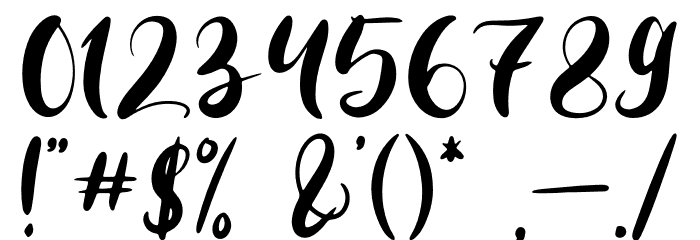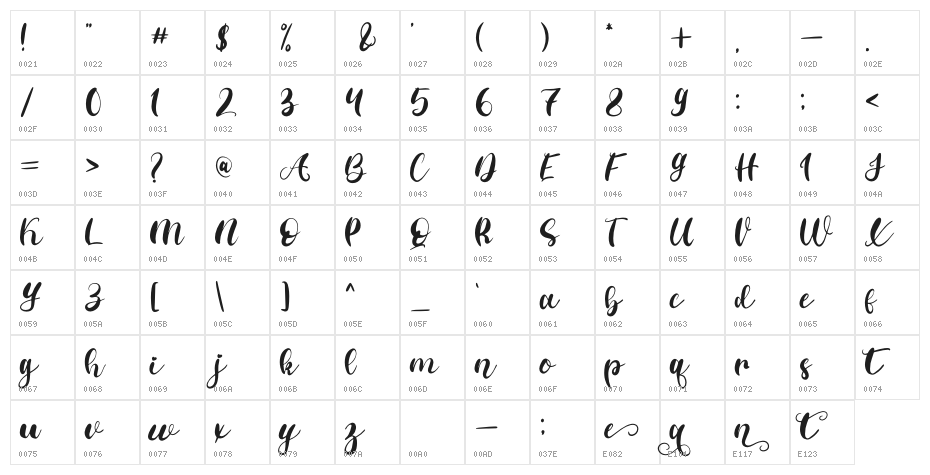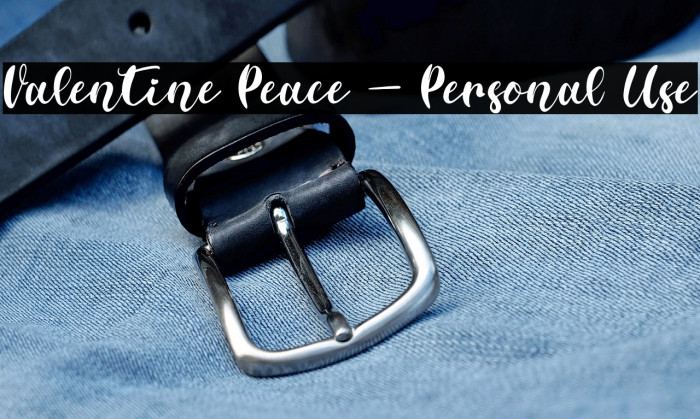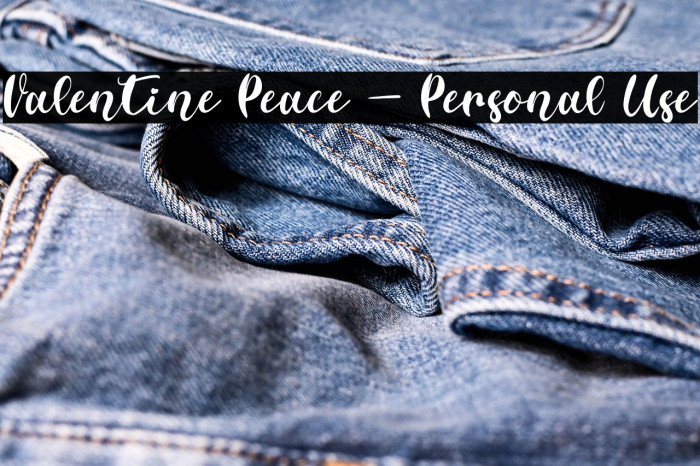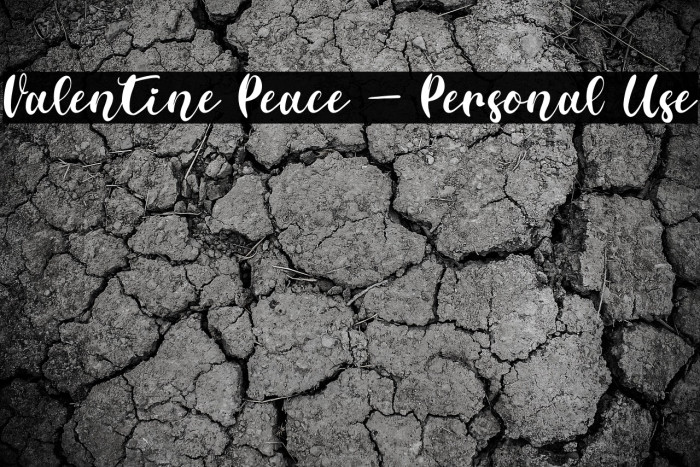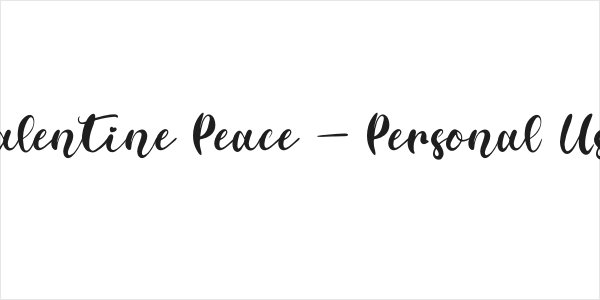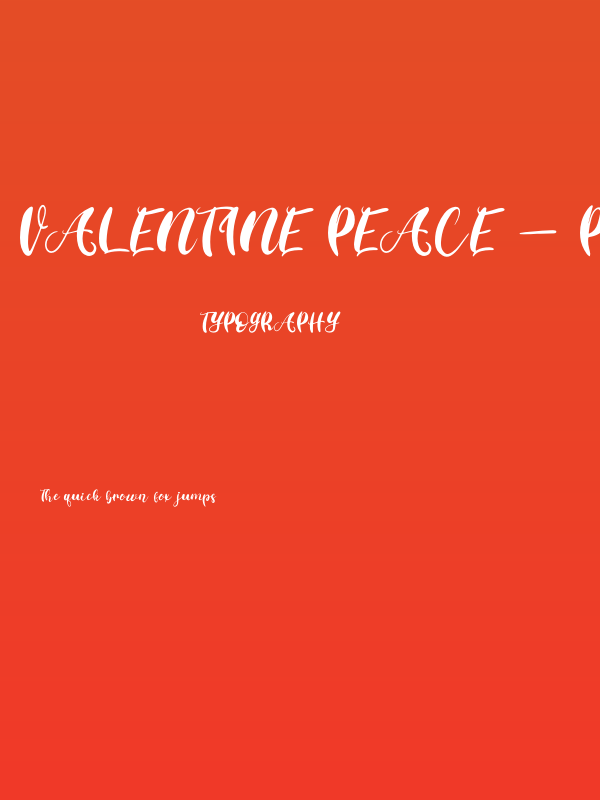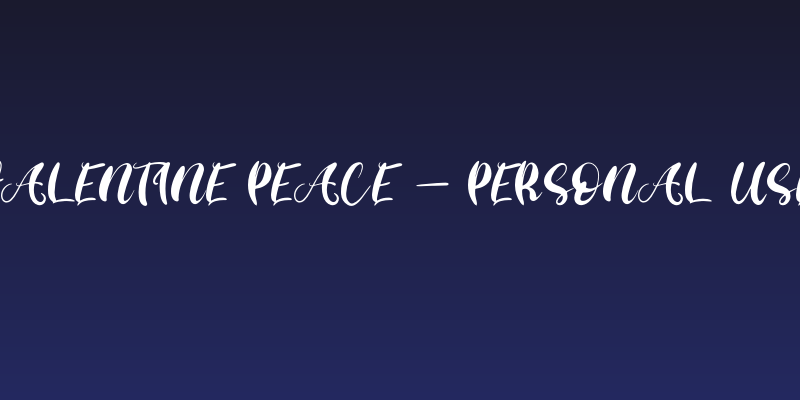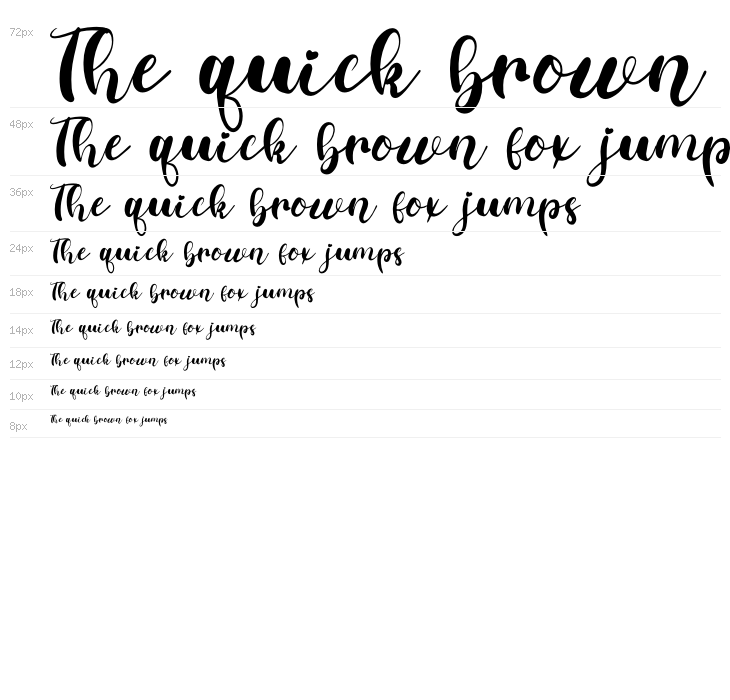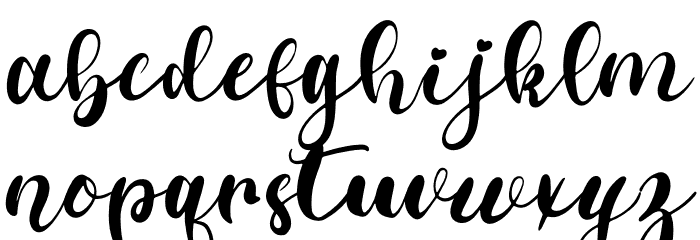
Valentine Peace - Personal Use Font
Valentine Peace - Personal Use Description
This font features a flowing, cursive style with a modern and elegant touch. The characters are interconnected, creating a seamless and fluid appearance. The uppercase letters are bold and expressive, while the lowercase letters maintain a consistent flow with graceful curves. The numerals are dynamic and match the overall aesthetic, adding a playful yet sophisticated element. Special characters are designed with the same attention to detail, ensuring they blend seamlessly with the rest of the font. The overall design is perfect for projects that require a personal and heartfelt touch, such as invitations, greeting cards, and branding materials.